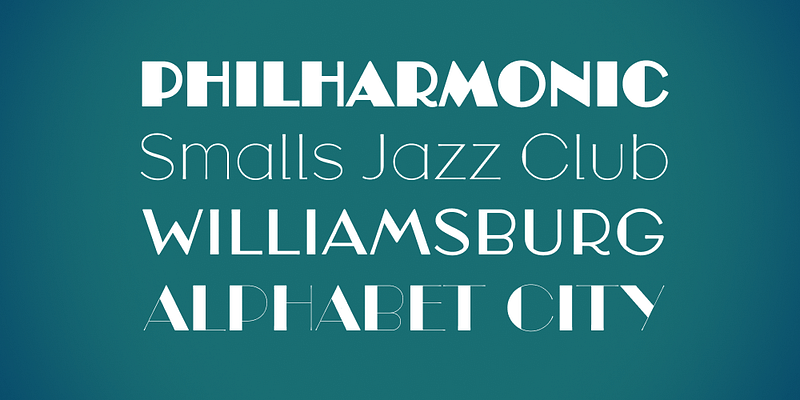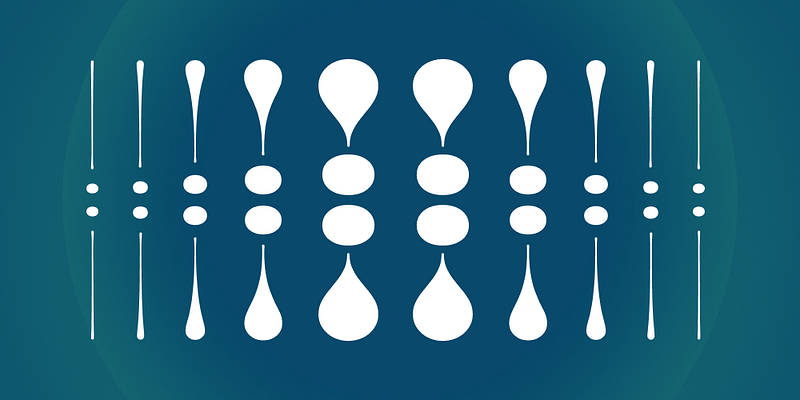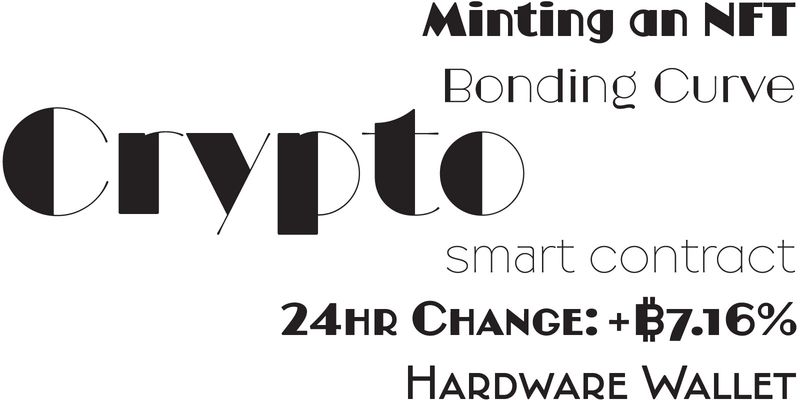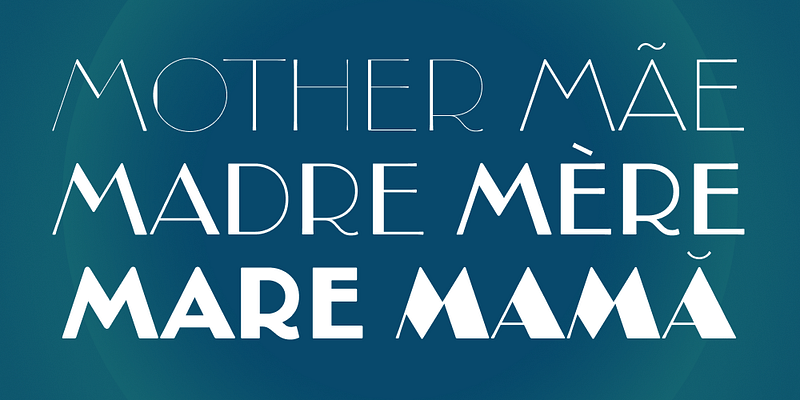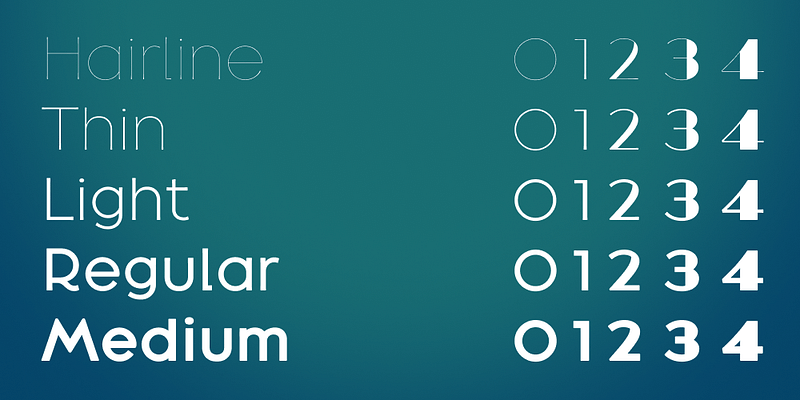
Greg Thompson’s Broadacre revisits and expands on Morris Benton’s 1920’s art deco classic, Broadway. Broadacre variable font is also available on request from Type Network.
Greg Thompson is an American typeface designer. He began designing original typefaces in 1989 for the new retail font market. He formed a decades-long association with The Font Bureau of Boston, and in 2016 launched his own foundry on Type Network. Greg’s typefaces are part of the visual landscape in branding retail product packaging, especially food and cosmetics, restaurants, entertainment, gaming, music and movie titles, book and magazine covers, and rental housing.